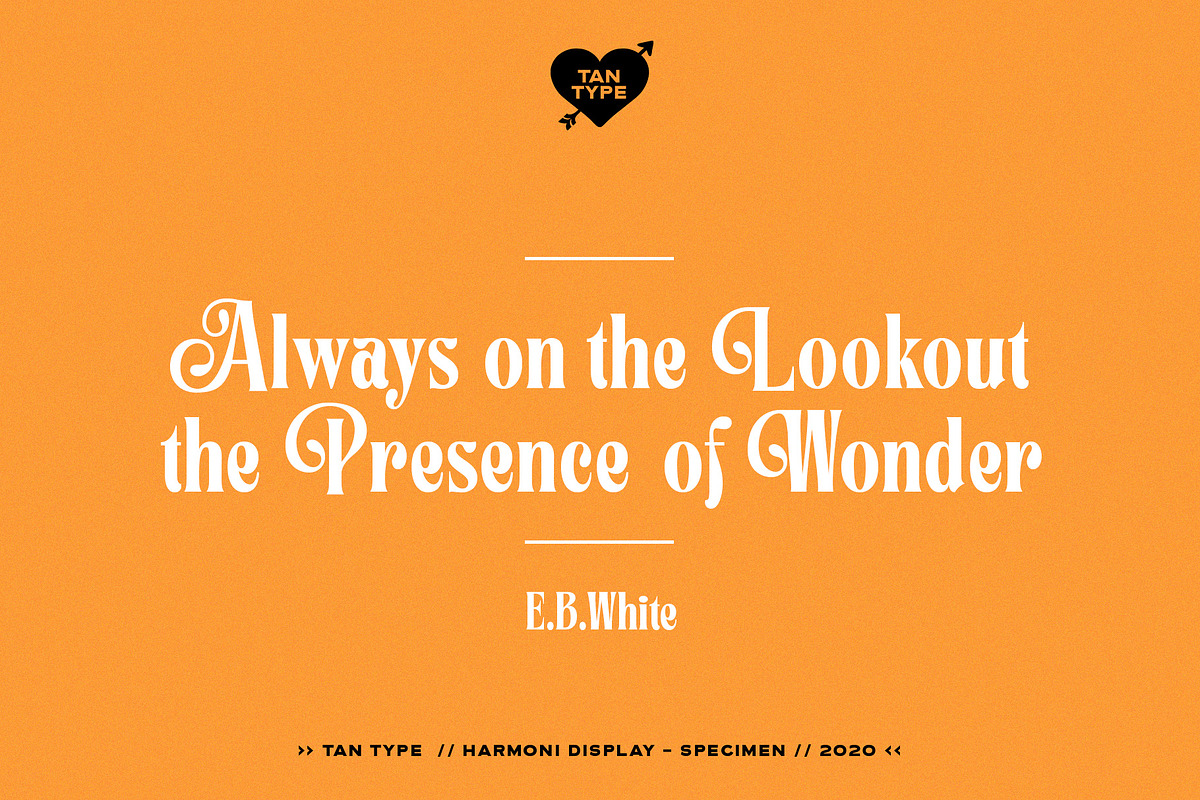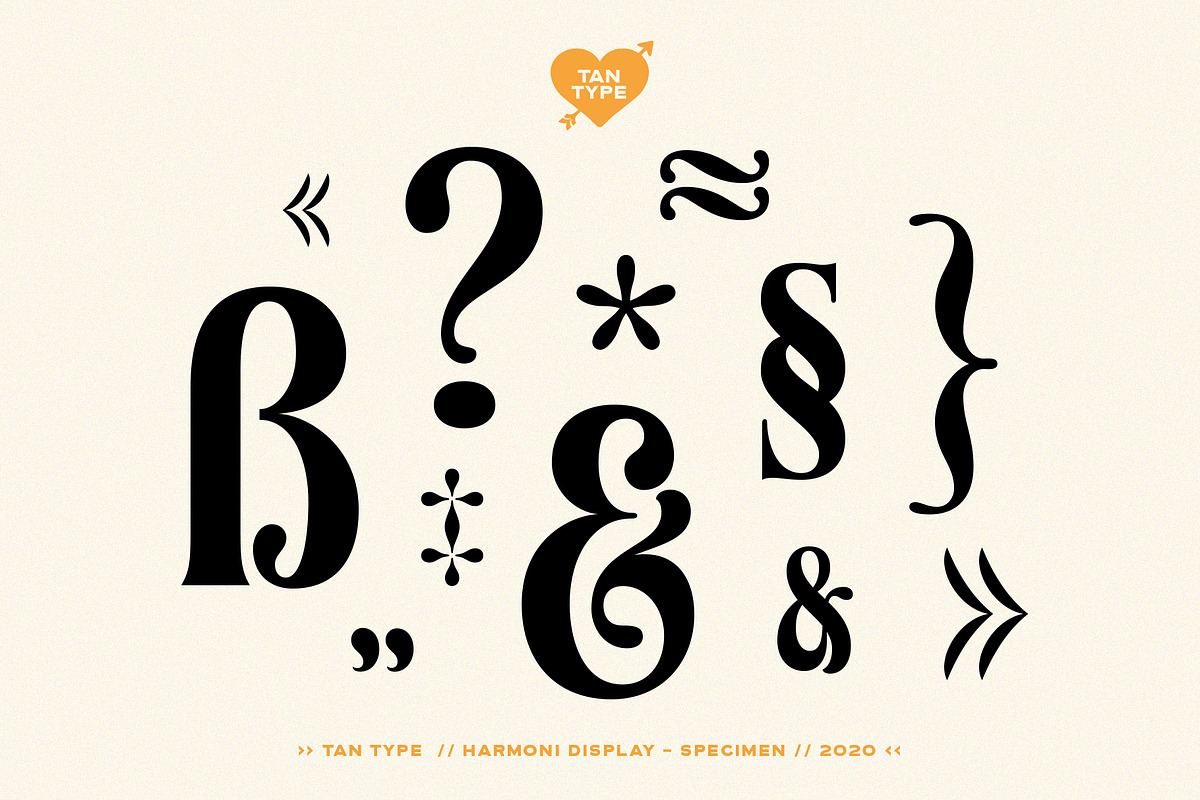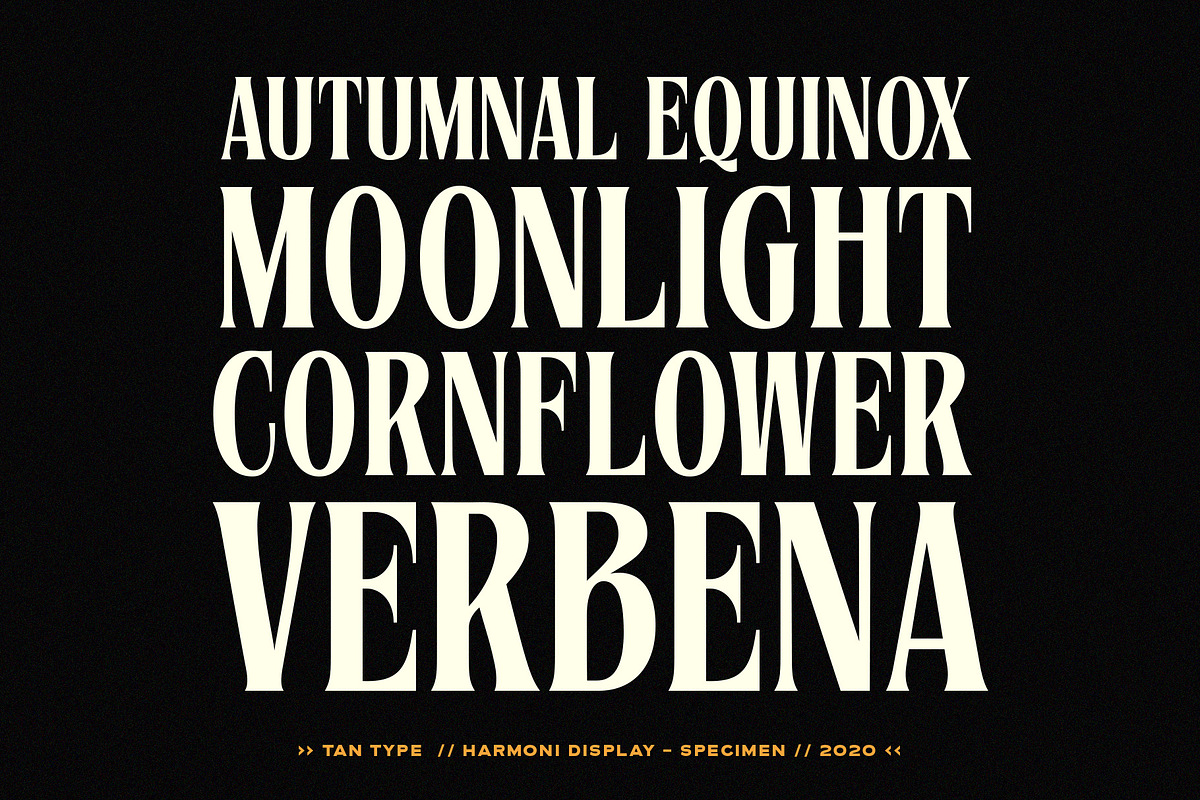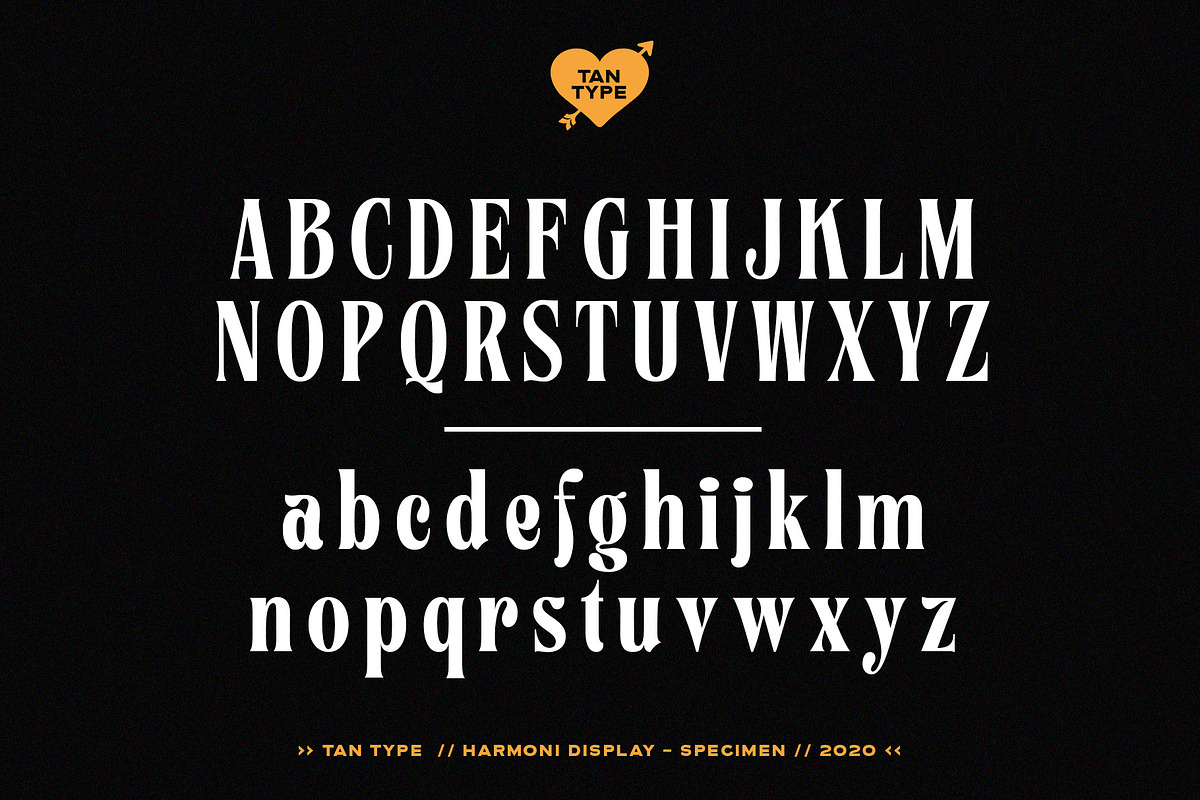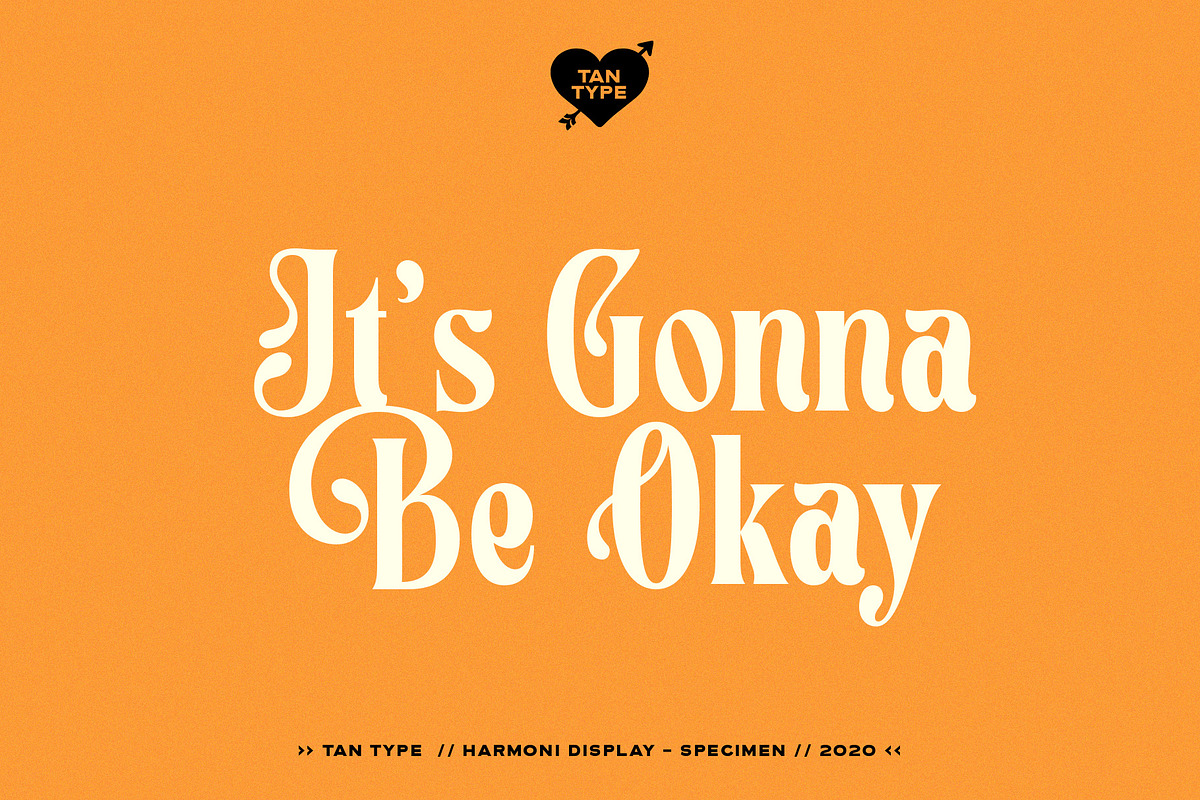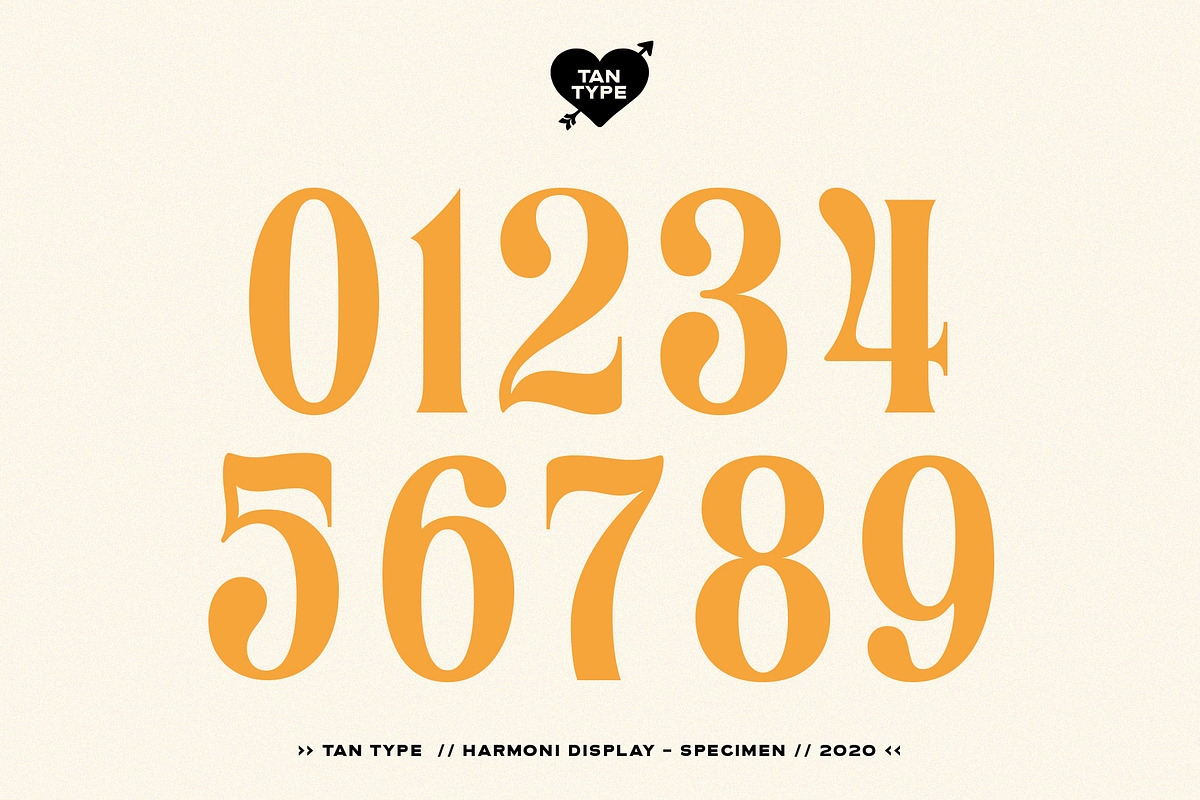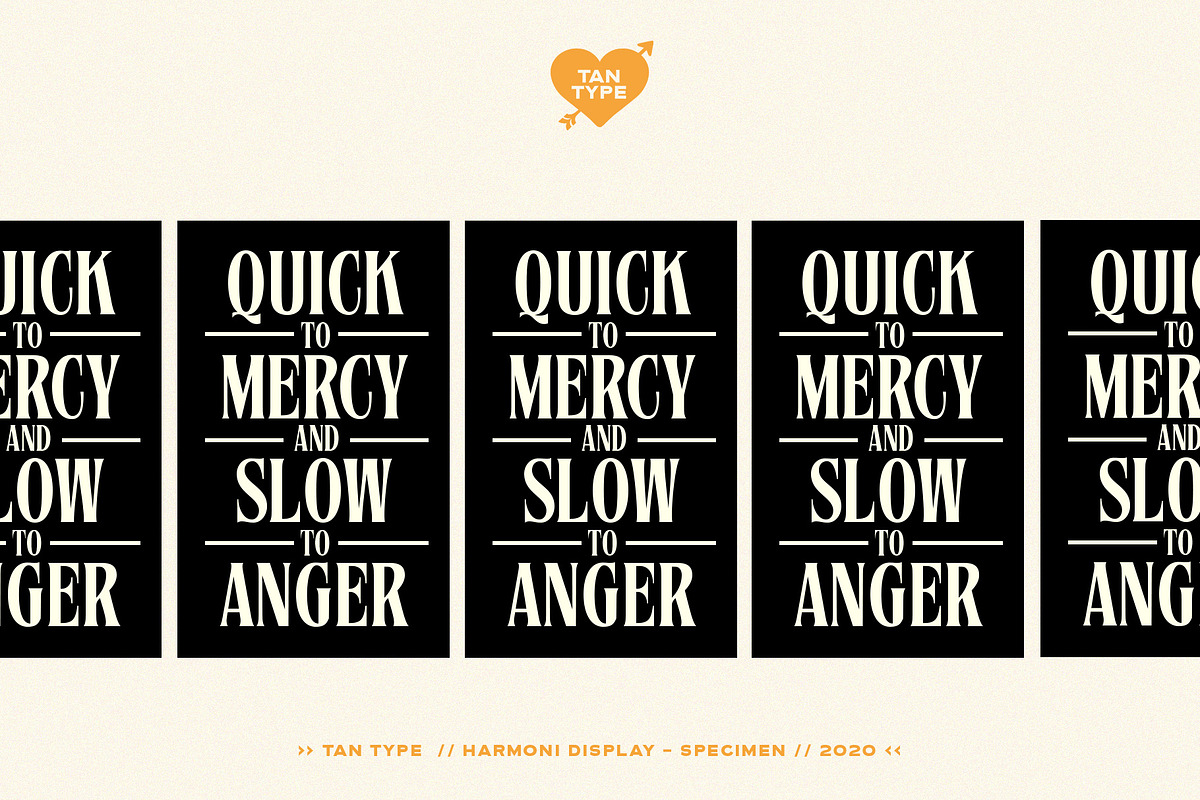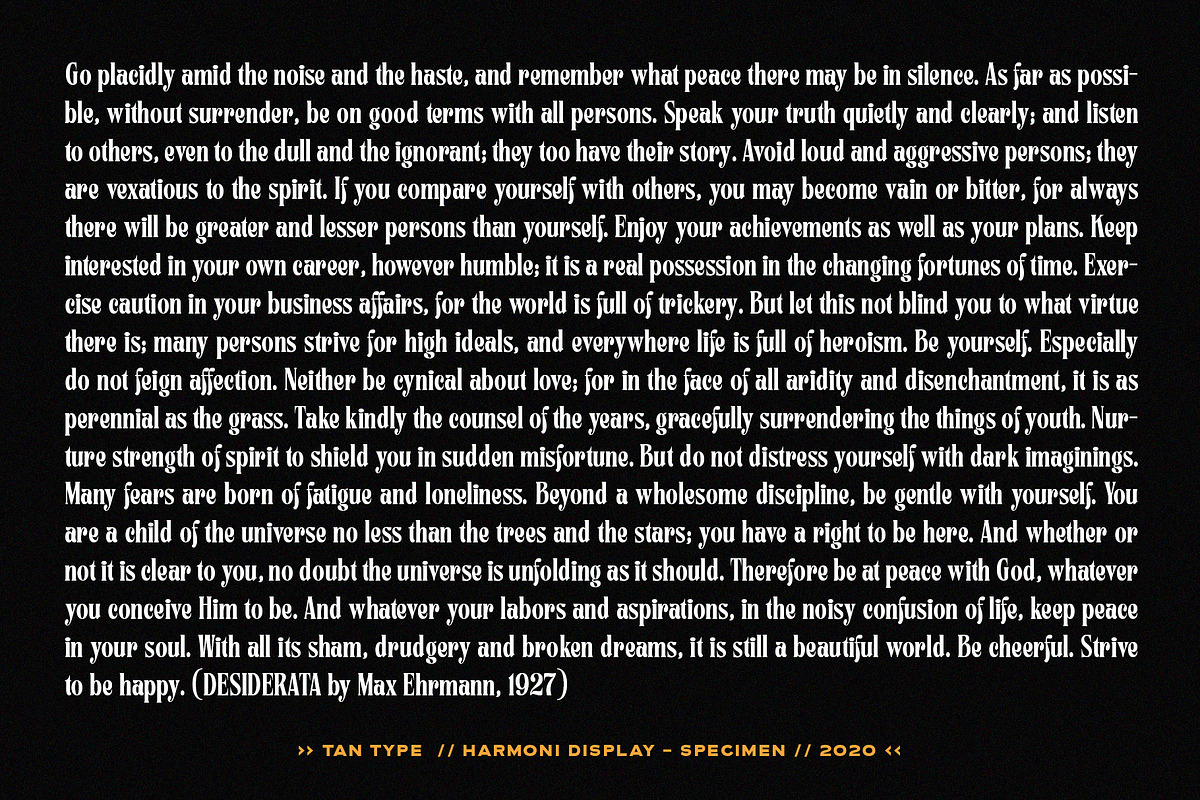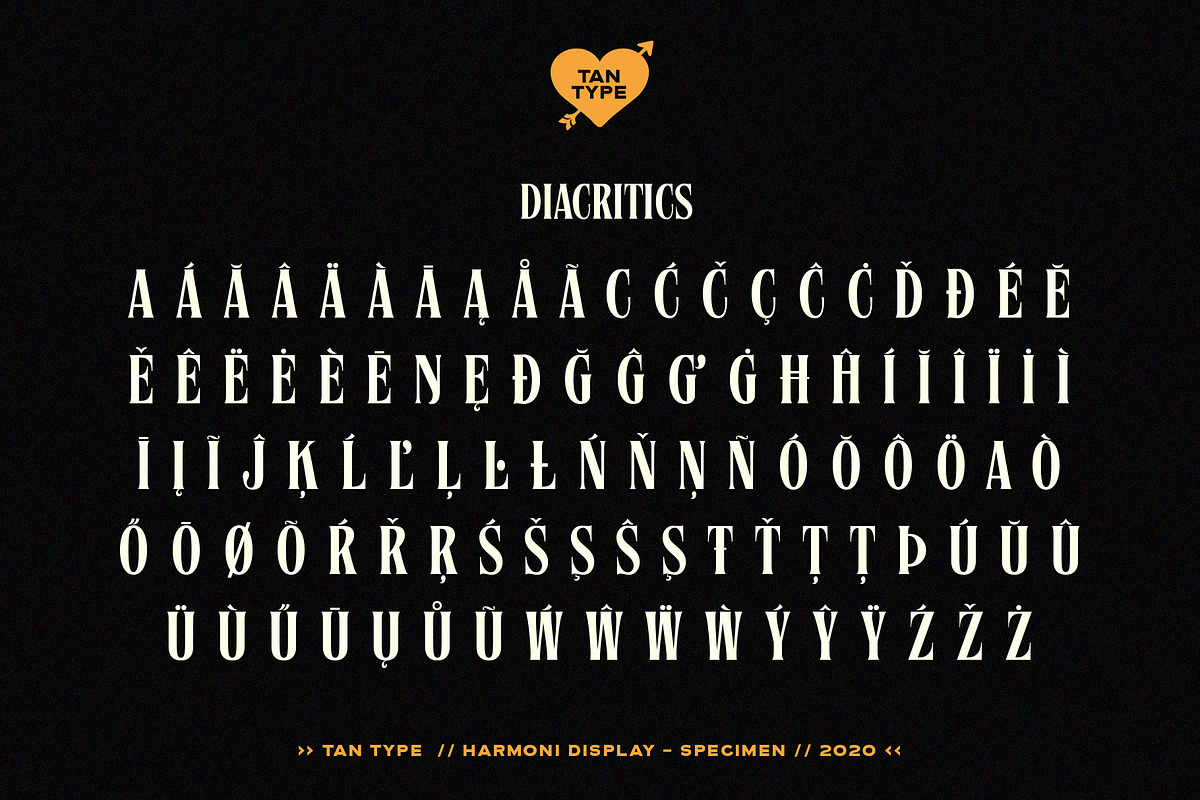
TAN - Harmoni
Harmoni is a display serif typeface. It retains the balance of being playful yet elegant. It has alternates for all the uppercase letters and some for the lowercase. Turn off the stylistic toggle and you can find a more serious tone with this typeface.